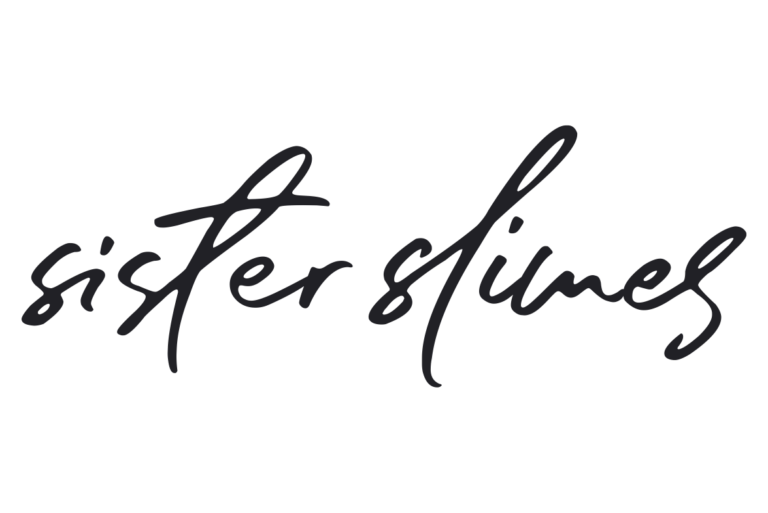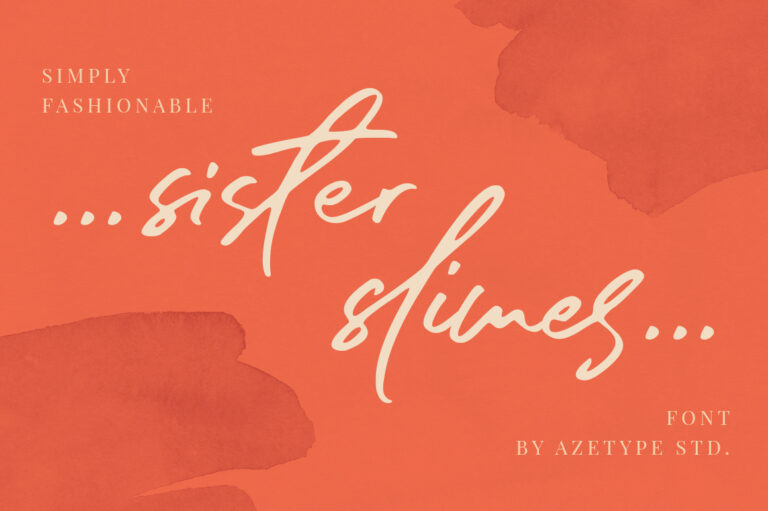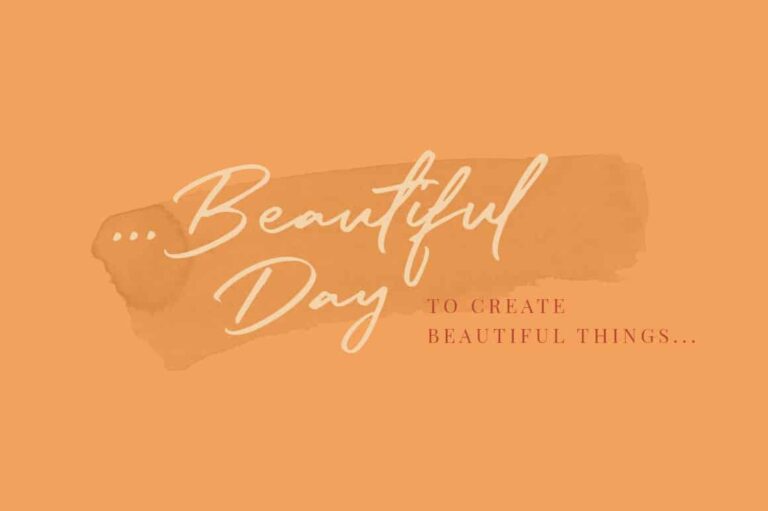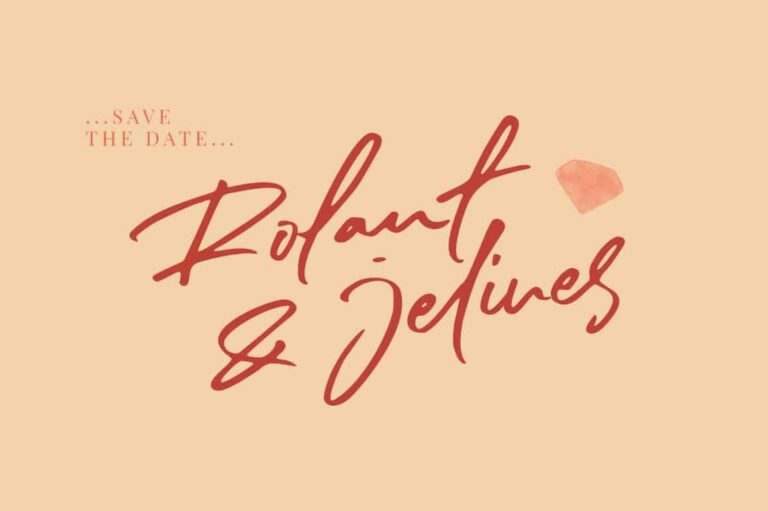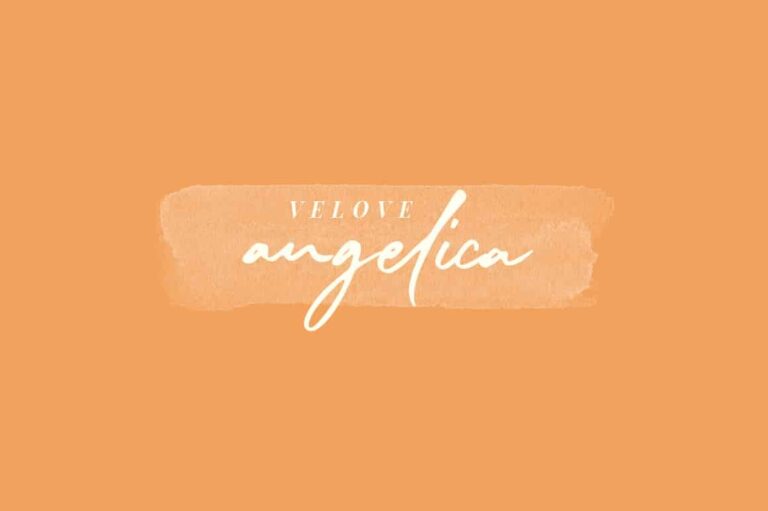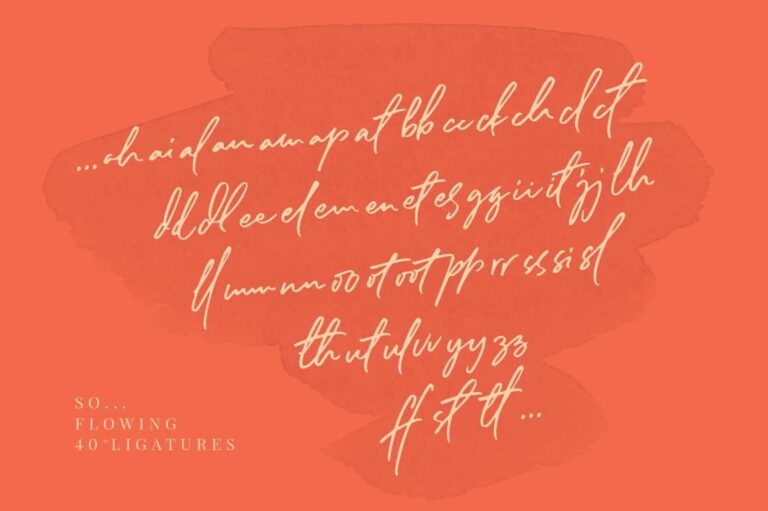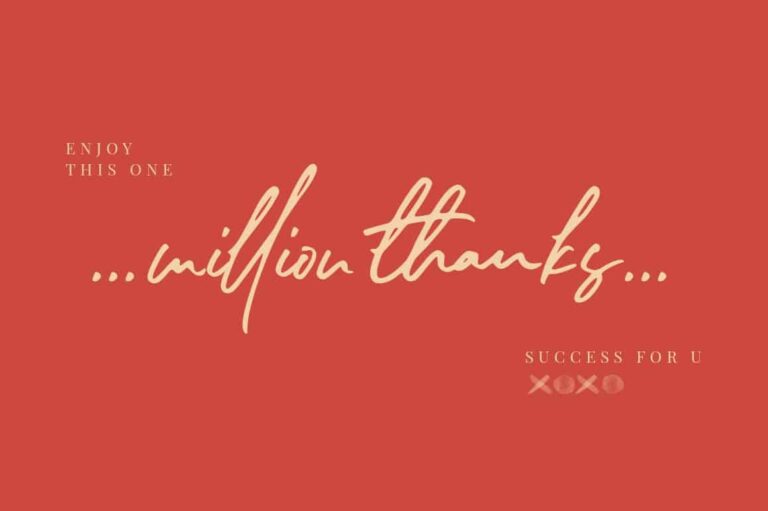
- Sister Slimes
A simply fashionable font with the original hand scratches.
So, Sister Slimes can’t wait to give its touch to all your design projects such as quotes, wedding invitation, personal branding, logotype, promotional materials, overlay on the picture, social media promotion, product packaging, etc